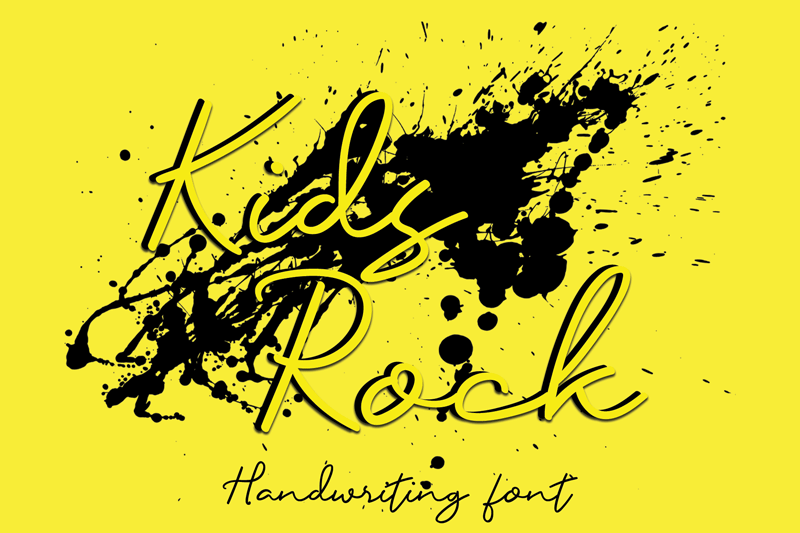
Preview and download Kids Rock Font. Created by Erik Luluk in Script Handwritten styles with Free for personal use license.
Font name: | Kids Rock |
Kids Rock is a relaxed, cursive and light script font. Whatever the topic, this font will be a wonderful asset to your font library, as it has the potential to enhance any creation. Attention : Kids Rock handwriting Font is prohibited to use this font for commercial purposes or for profit without the permission of the author/admin, without being known to use this font without permission, will be subject to sanctions 5x the specified price. This font is used only for demos (Demo license) If you want to use this font for commercial use please contact email: erikluluk0@gmail.com or click the link below: https://www.creativefabrica.com/product/kids-rock/ref/745146/ If you want to see more other fonts, please click:https://www.creativefabrica.com/designer/erik-studio/ref/745146/ Any donations are very appreciated. Paypal account for donation: https://paypal.me/erikstudio1 thanks. |